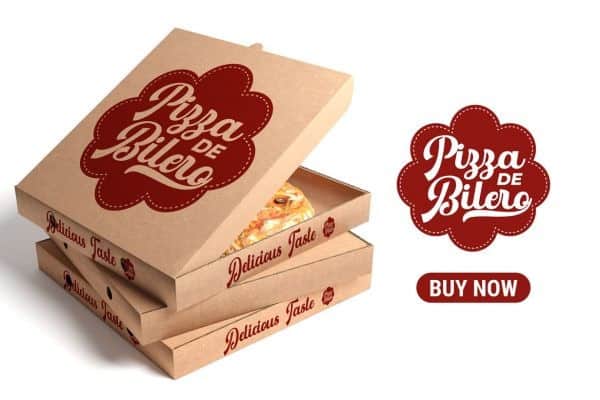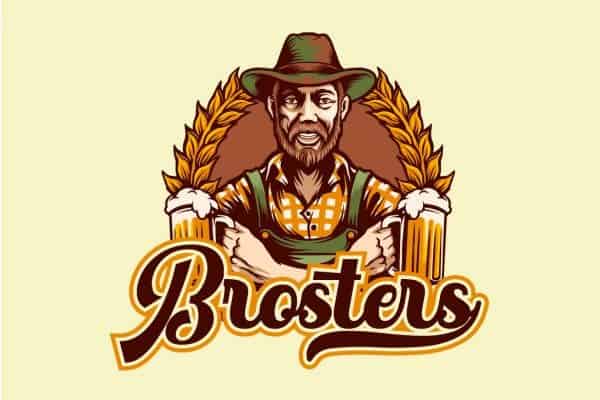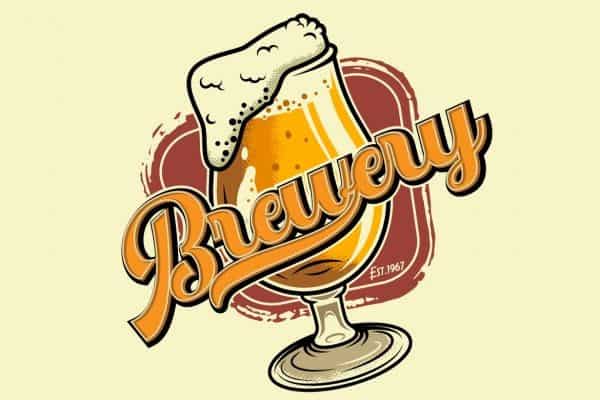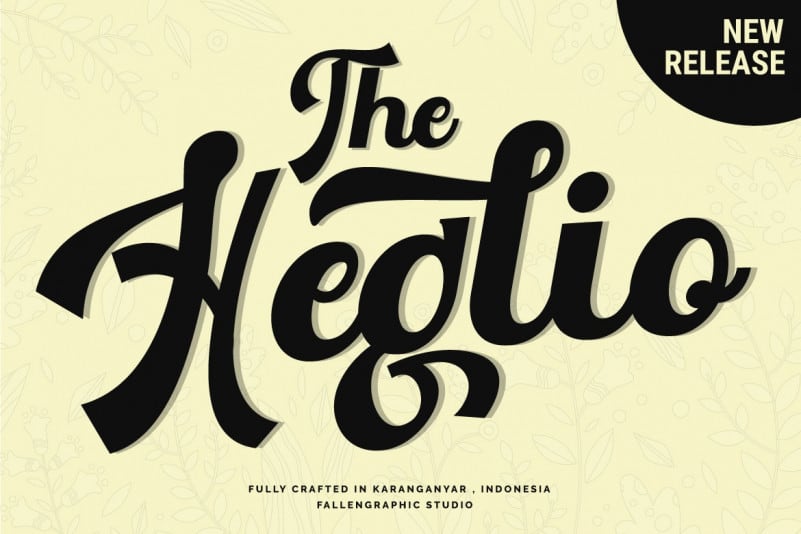
The Heglio Script Font is a modern script that inspired by streetwear and combination hand lettering style. It’s designed and shared by FallenGraphic Studio. The Heglio font under inspiration of vintage bar signage, hotel signage, barbershop signage ect. The Heglio has a classic impression but still elegant suitable for modern and classic designs project.The Heglio are perfect for badge, label, tshirt design, branding, logotype,